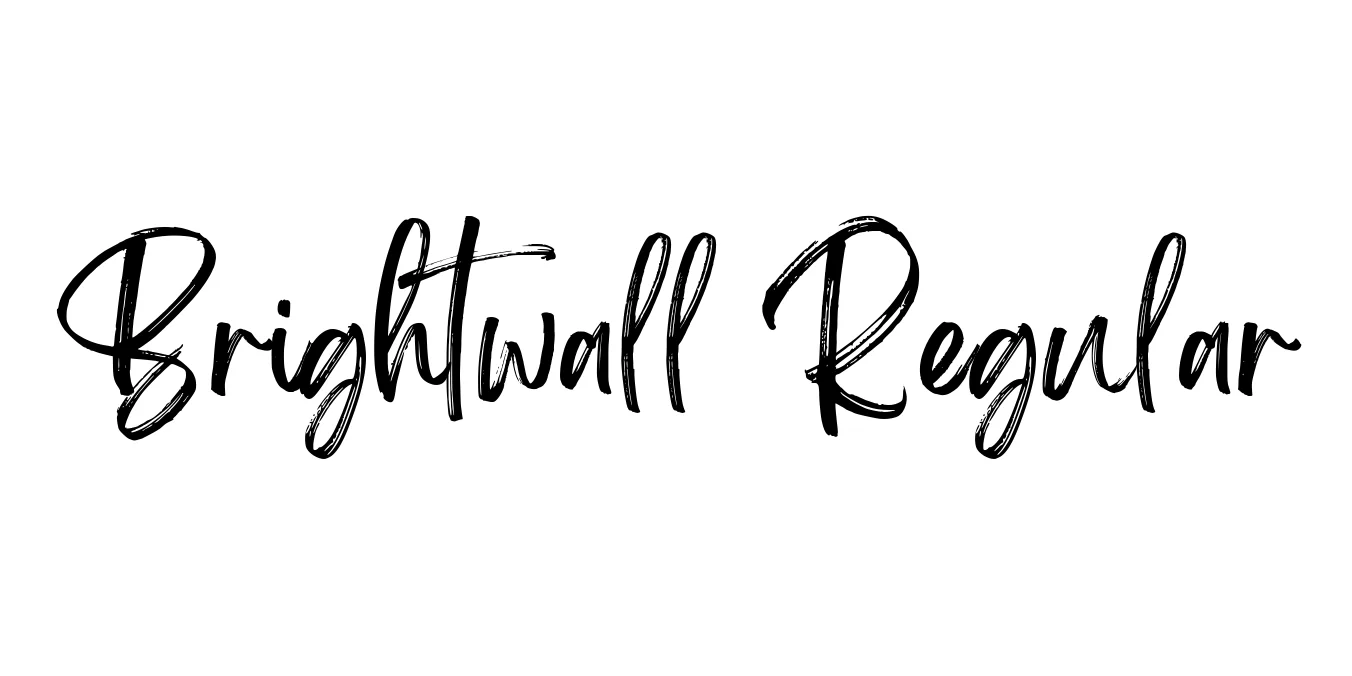
Brightwall Regular
Designed by StringLabs Creative
Brightwall Regular is a contemporary brush script font that exudes energy and modern flair. It features bold, hand-painted strokes that create a dynamic rhythm, making it perfect for designs that require a personal, artisanal touch. The texture of the brush adds a realistic feel to digital compositions, often favored for branding, apparel, and high-impact headlines.
This font is versatile enough for both digital and print media. Its natural ligatures and flowing characters provide a custom hand-drawn look, ideal for logos, social media graphics, and creative posters. Whether used for a summer-themed campaign or an edgy urban brand, Brightwall Regular stands out for its readability and expressive nature in the modern design landscape.
Brightwall Regular Best Uses
Perfect for creating distinctive, hand-drawn brand identities.
Great for eye-catching Instagram posts and story overlays.
Ideal for T-shirt designs and street-wear branding.
Adds a personal touch to artisanal product labels and boxes.